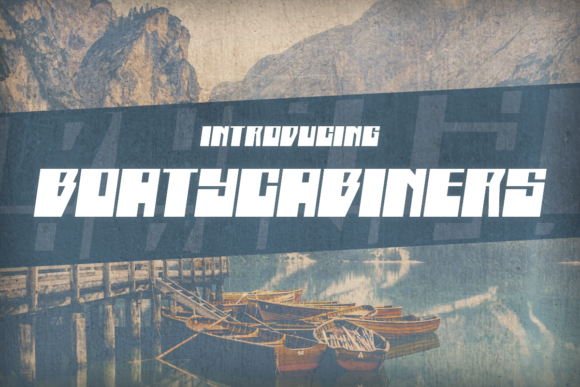
Introducing Boatycabiners Font: A Striking Typeface for Standout Designs
Are you tired of using the same old fonts for your designs? Look no further! Boatycabiners Font is a game-changing typeface that’s sure to make your creations stand out from the crowd. With its unique and striking design, this font is perfect for designers and crafters who want to add a touch of personality to their work.
The Story Behind Boatycabiners Font
Boatycabiners Font is a carefully crafted typeface that’s inspired by the adventurous spirit of the sea. Its name is derived from the words “boat,” “cabin,” and “bers,” which evoke a sense of freedom and creativity. The font’s design is a perfect blend of modern and vintage elements, making it versatile and suitable for a wide range of design applications.
Key Features of Boatycabiners Font
So, what makes Boatycabiners Font so special? Here are some of its key features:
- Unique Design: Boatycabiners Font boasts a distinctive design that’s unlike any other font out there. Its bold lines, curves, and shapes make it a true showstopper.
- Highly Versatile: This font is perfect for a wide range of design applications, from logos and branding to posters, flyers, and more.
- Easily Readable: Despite its bold design, Boatycabiners Font is surprisingly easy to read, making it perfect for both digital and print applications.
- Customizable: With its extensive range of characters and symbols, Boatycabiners Font can be easily customized to fit your design needs.
Uses for Boatycabiners Font
Boatycabiners Font is an incredibly versatile typeface that can be used for a wide range of design projects. Here are some ideas to get you started:
- Logo Design: Create a bold and memorable logo for your business or brand with Boatycabiners Font.
- Posters and Flyers: Use Boatycabiners Font to create eye-catching posters and flyers that grab attention.
- Branding and Packaging: Add a touch of personality to your branding and packaging with this unique font.
- Digital Design: Use Boatycabiners Font to create stunning digital designs, from social media graphics to website headers.
Tips for Using Boatycabiners Font
Here are some tips for getting the most out of Boatycabiners Font:
- Experiment with Colors: Boatycabiners Font looks great in a range of colors, so don’t be afraid to experiment and find the perfect hue for your design.
- Play with Sizes: This font looks great in a range of sizes, from small and subtle to large and bold.
- Pair it with Other Fonts: Boatycabiners Font pairs well with a range of other fonts, so try combining it with different typefaces to create a unique look.
In conclusion, Boatycabiners Font is a striking typeface that’s perfect for designers and crafters who want to add a touch of personality to their work. With its unique design, versatility, and ease of use, this font is sure to become a favorite in your design arsenal. So why wait? Download Boatycabiners Font today and start creating standout designs that grab attention!